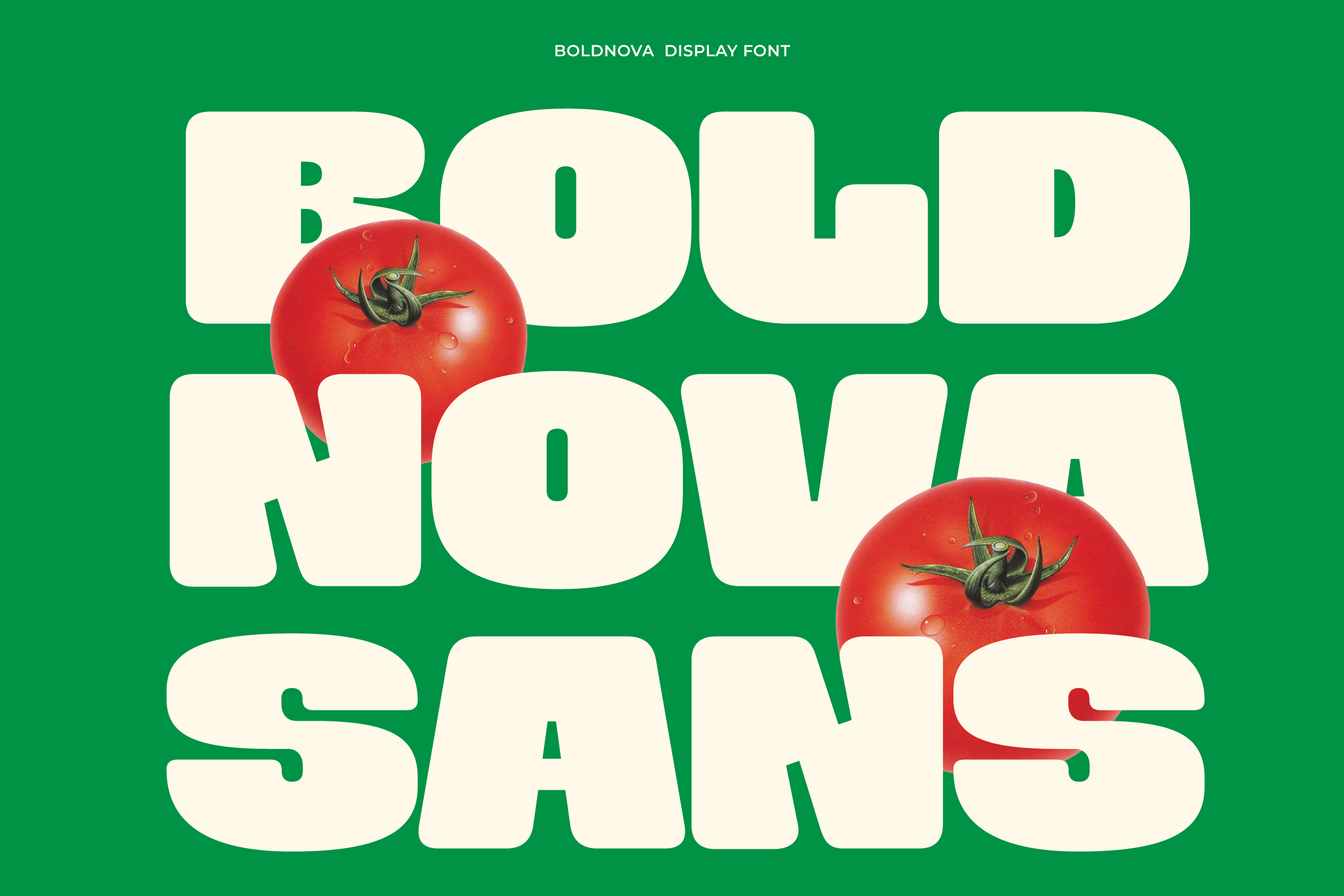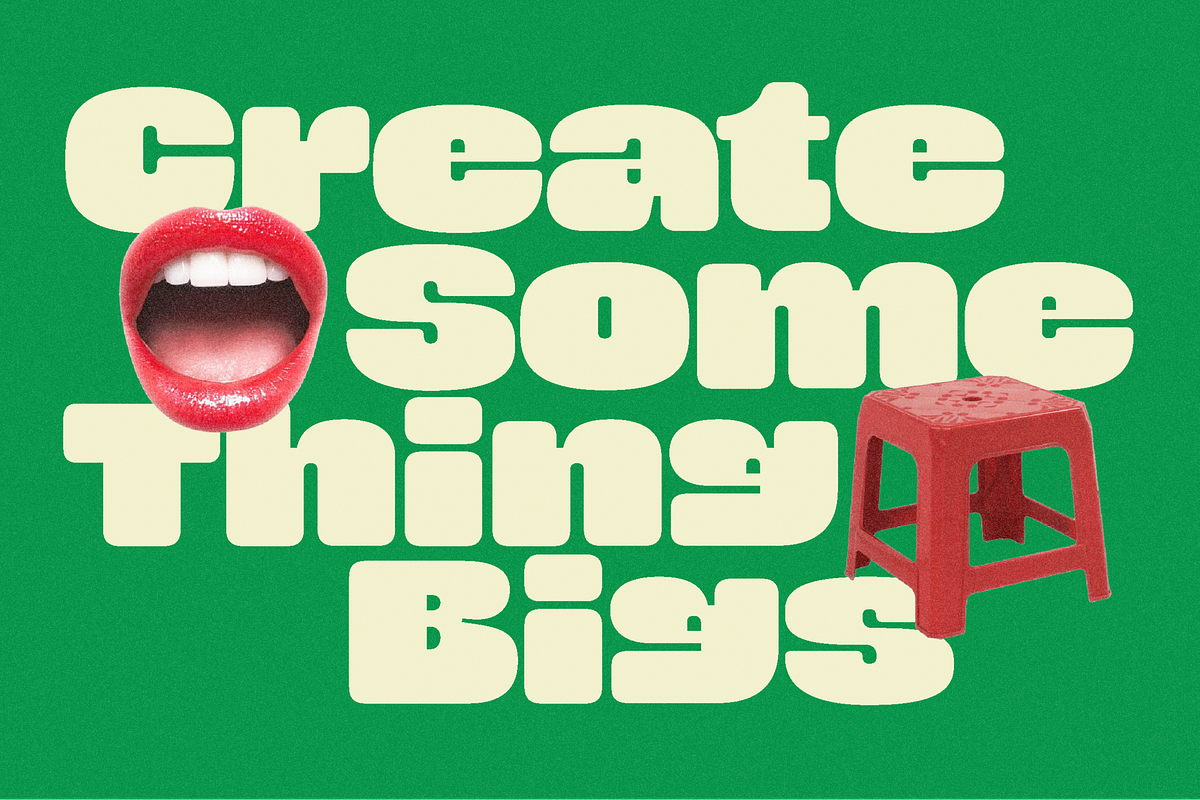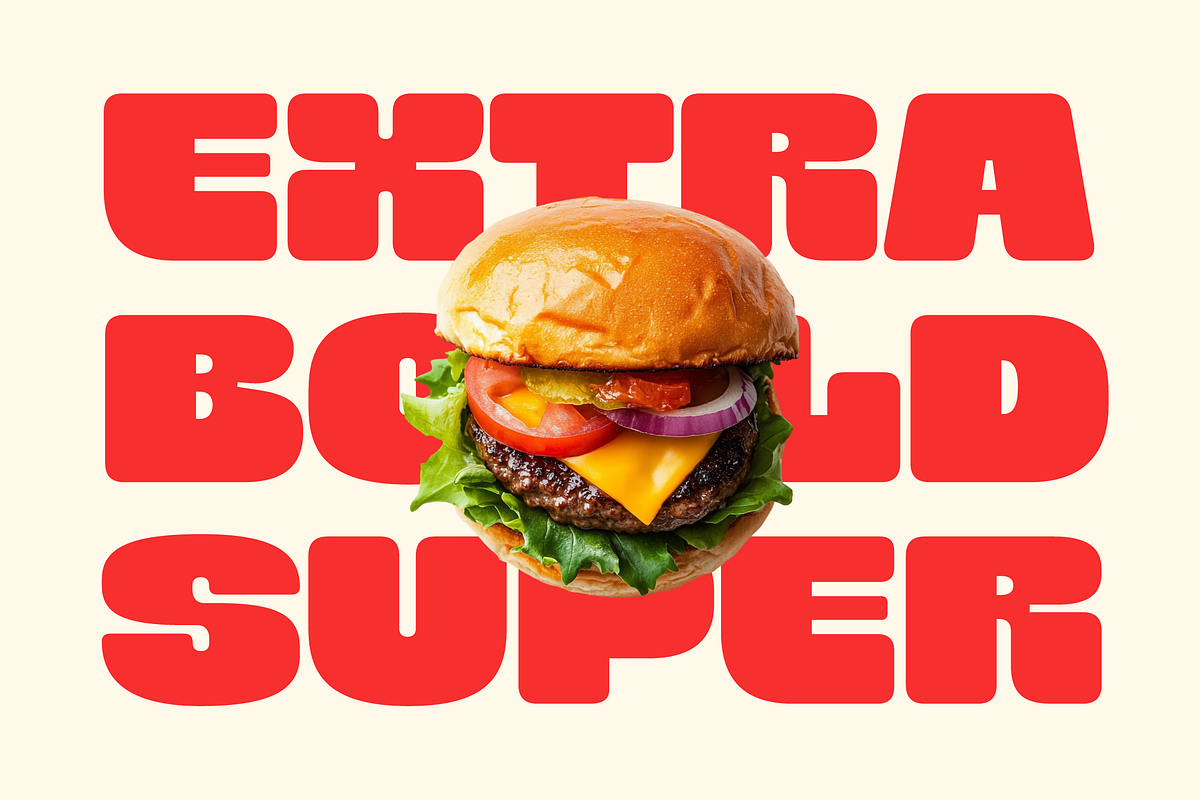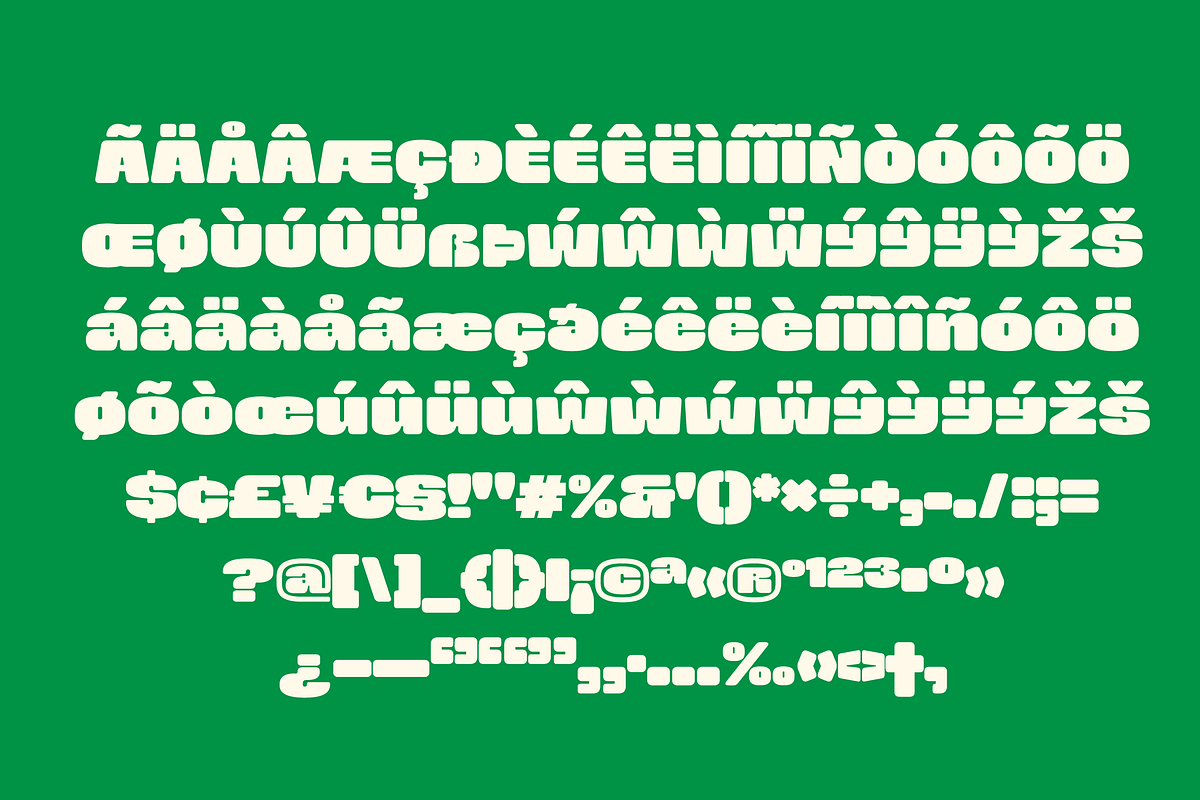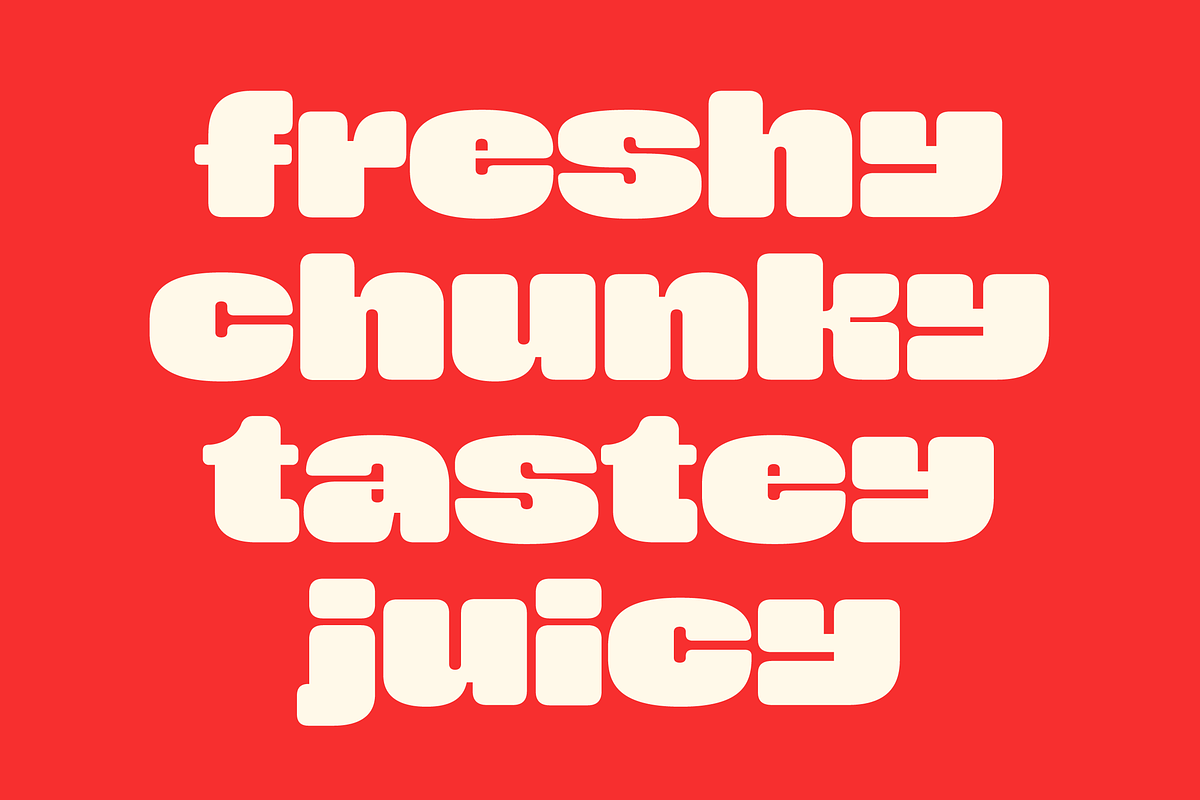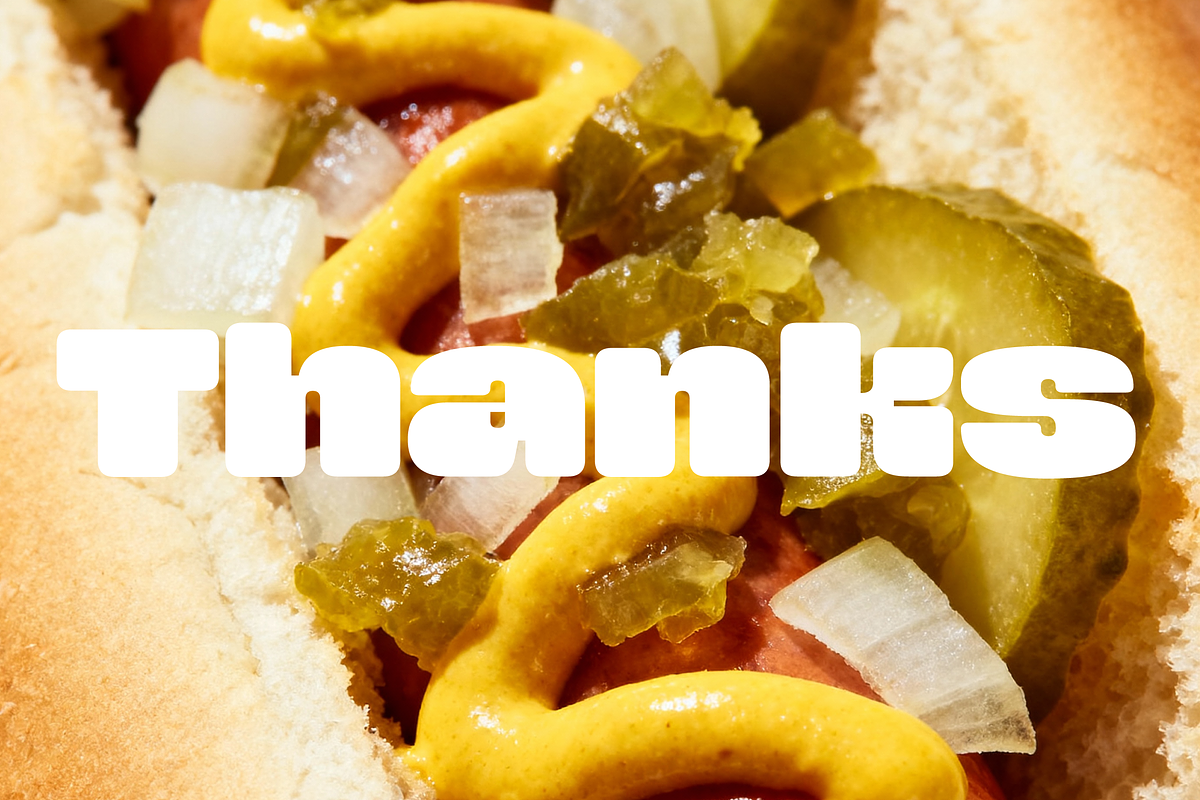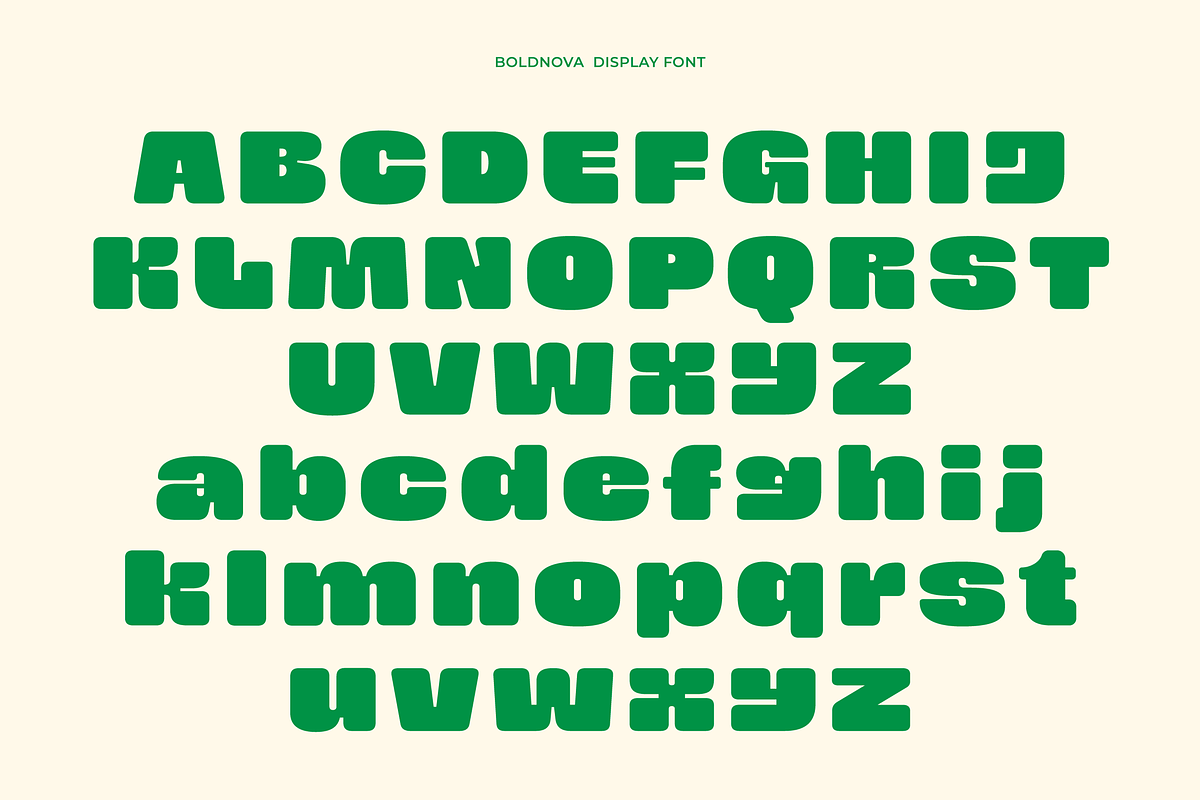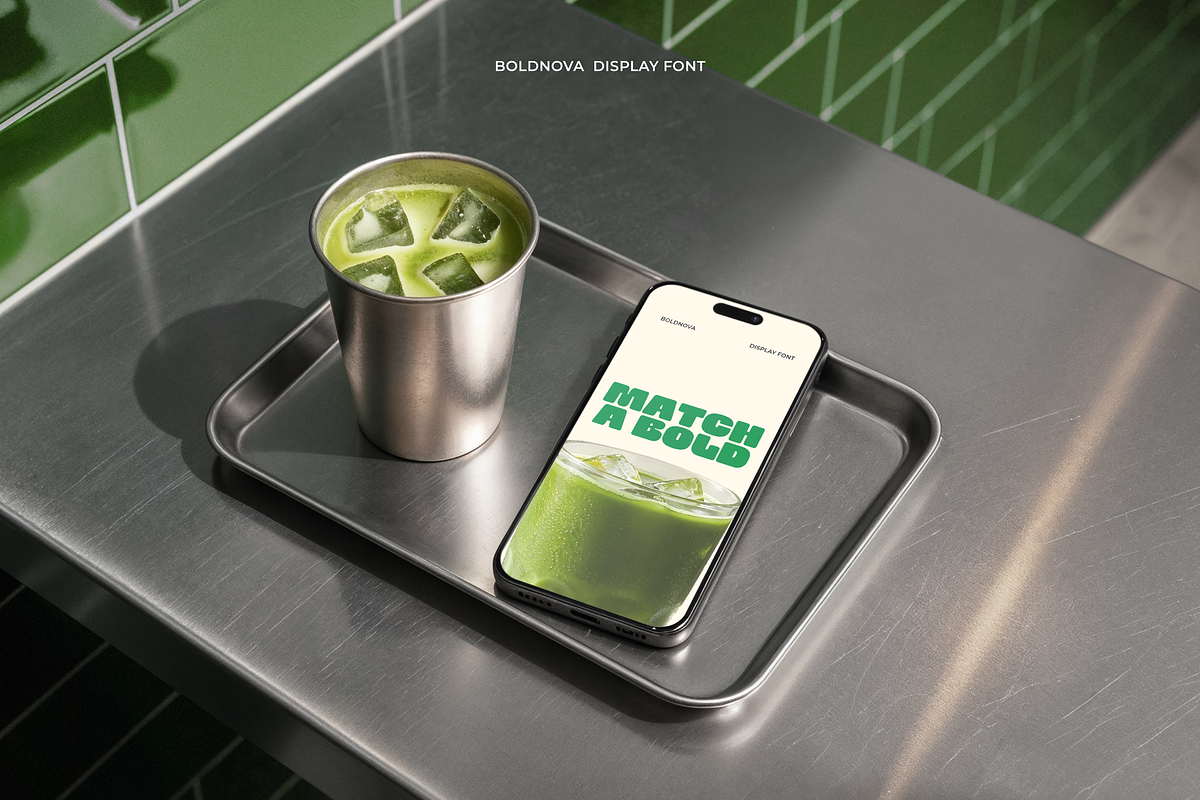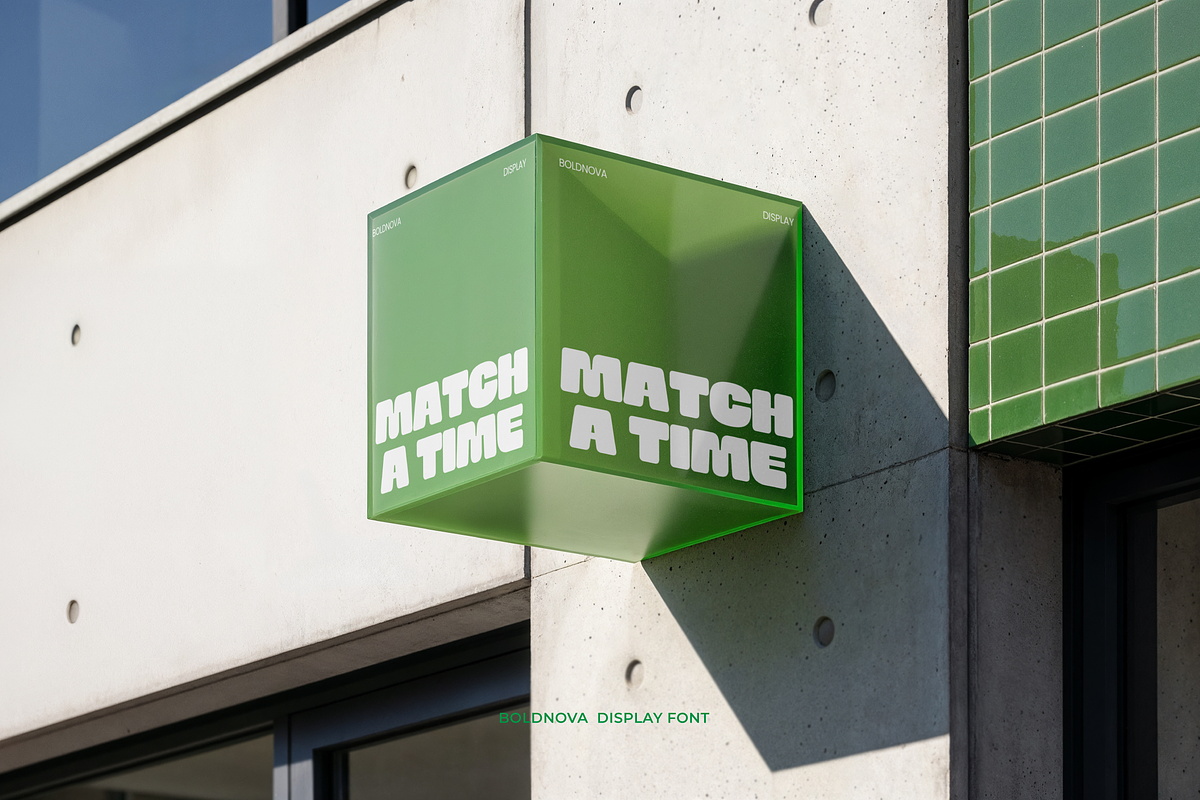
Boldnova - Bold Font
Boldnova is an extra bold rounded font with a lively retro vibe. Its smooth yet solid curves give off a friendly and confident feel. Perfect for posters, food branding, and product packaging, this font brings a warm and memorable touch to any design.